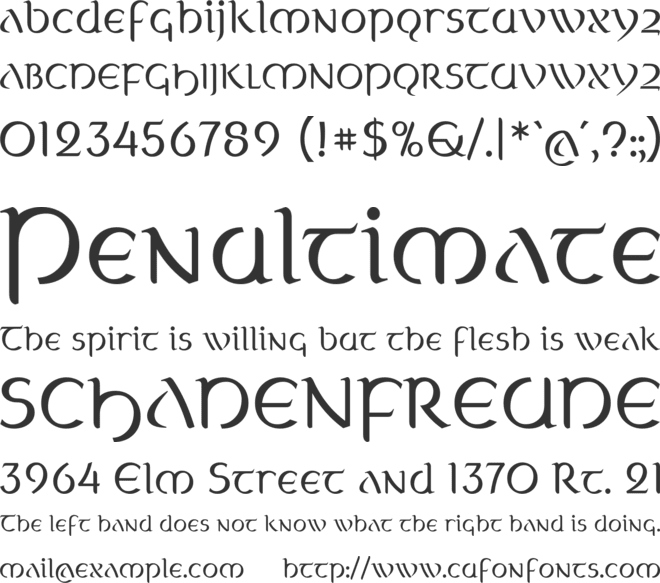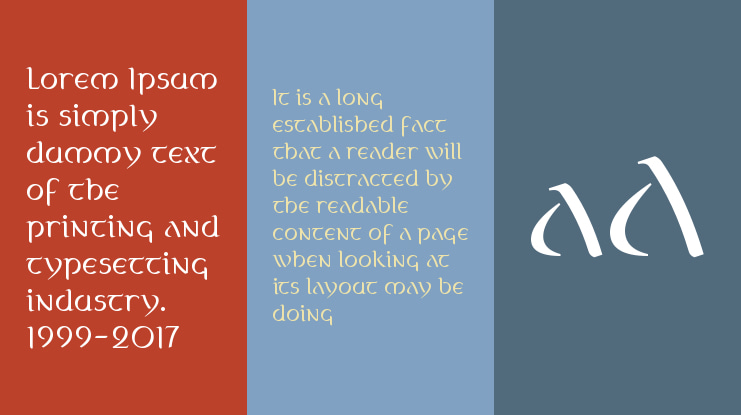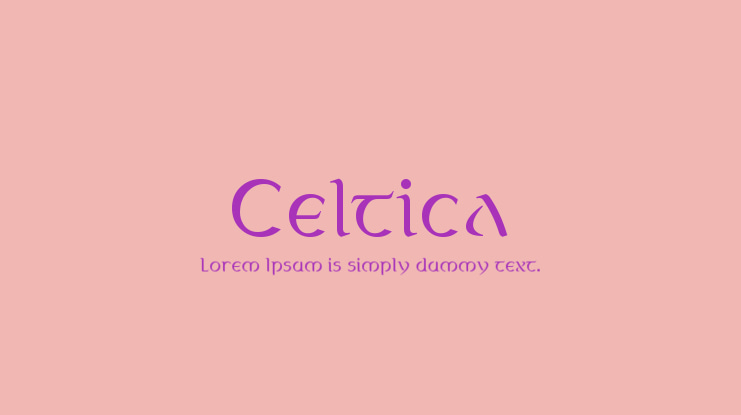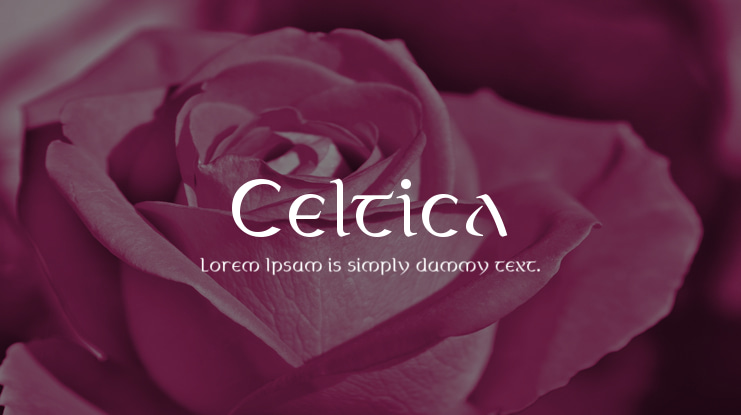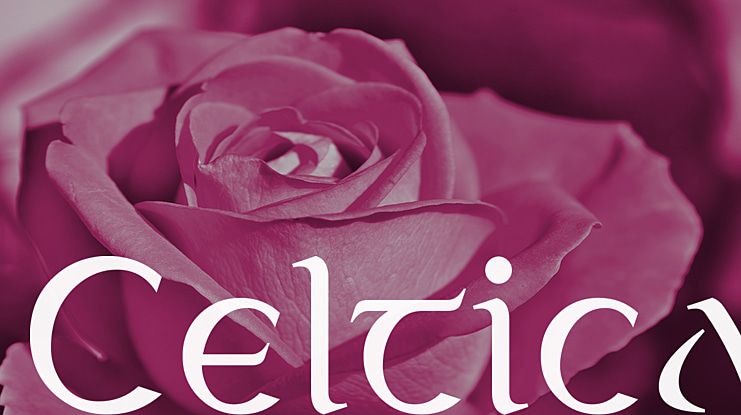
Celtica Font Family
This is my newest font based on uncial, half-uncial and carolingian scripts. Of course I did it my way, and some glyphs are different from original, but I tried to save original, old look of this font. "Celtica" with "Gothica" and "Classica" are a small set of my inspirations from oldest latin inscriptions.